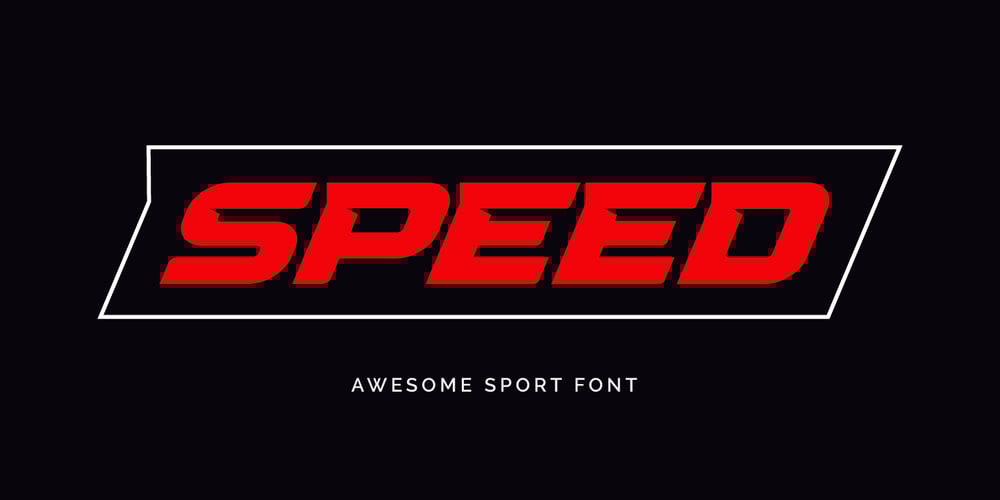
Speed
Speed font
Speed Font Family was designed by Yehor Lisnyi and published by Artyway. Speed contains 1 styles and family package options. I suggest you to pay attention to the “Speed” font. It’s bold, with sharp angles corners, spurs and slope for dynamic effect. “Speed” font has a unique charm and easy visual readability, so it’s perfect for headlines, whether for sports events, automotive posters, logo or monograms designs.